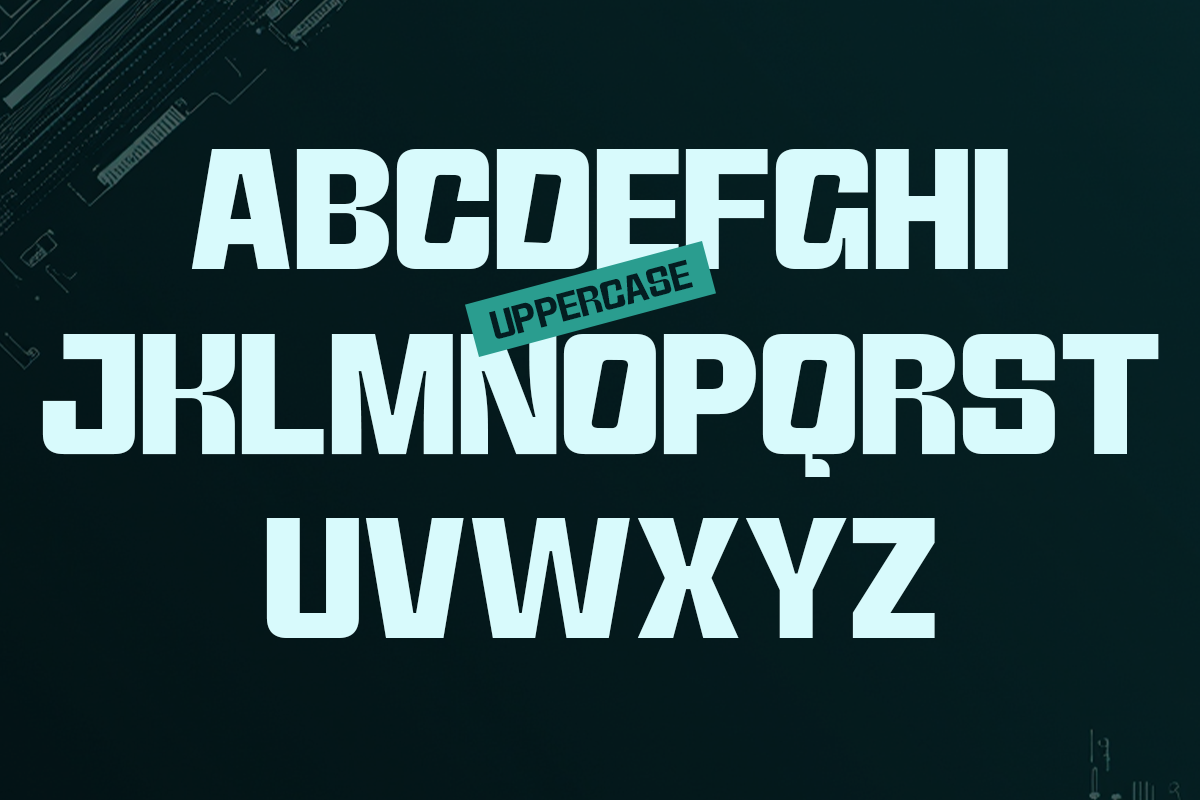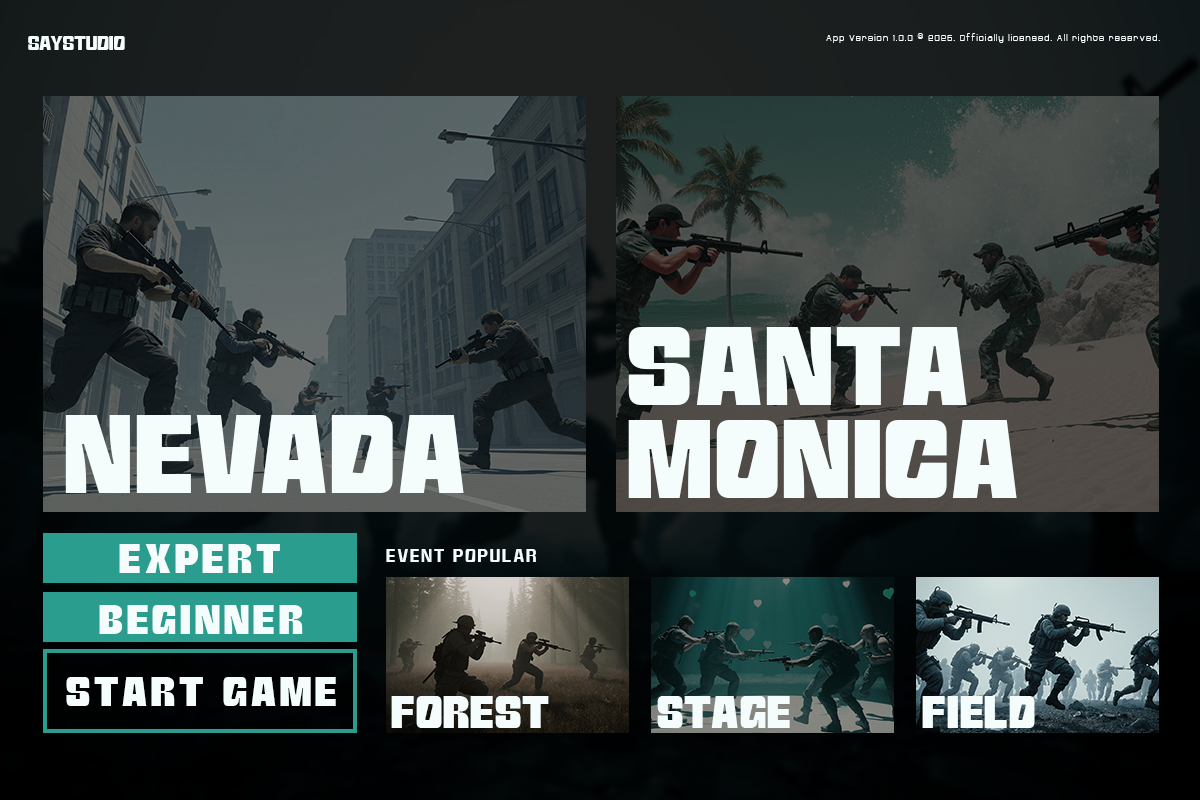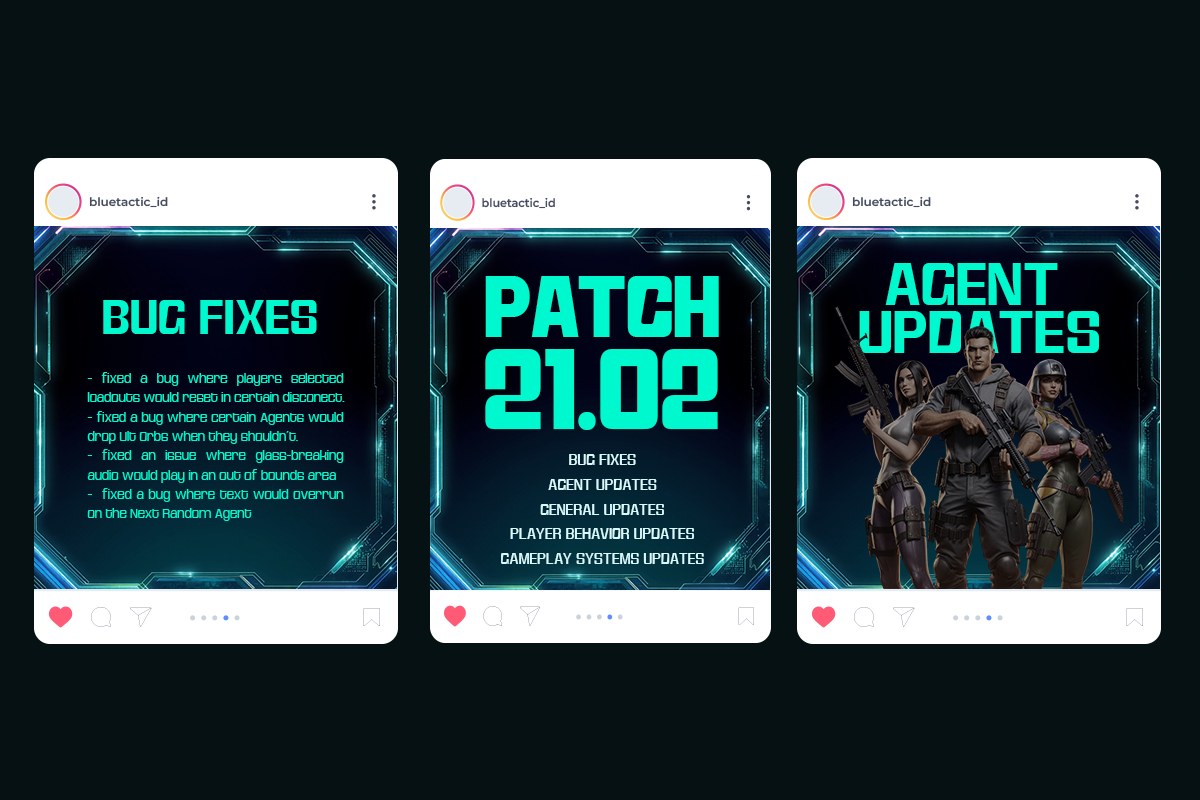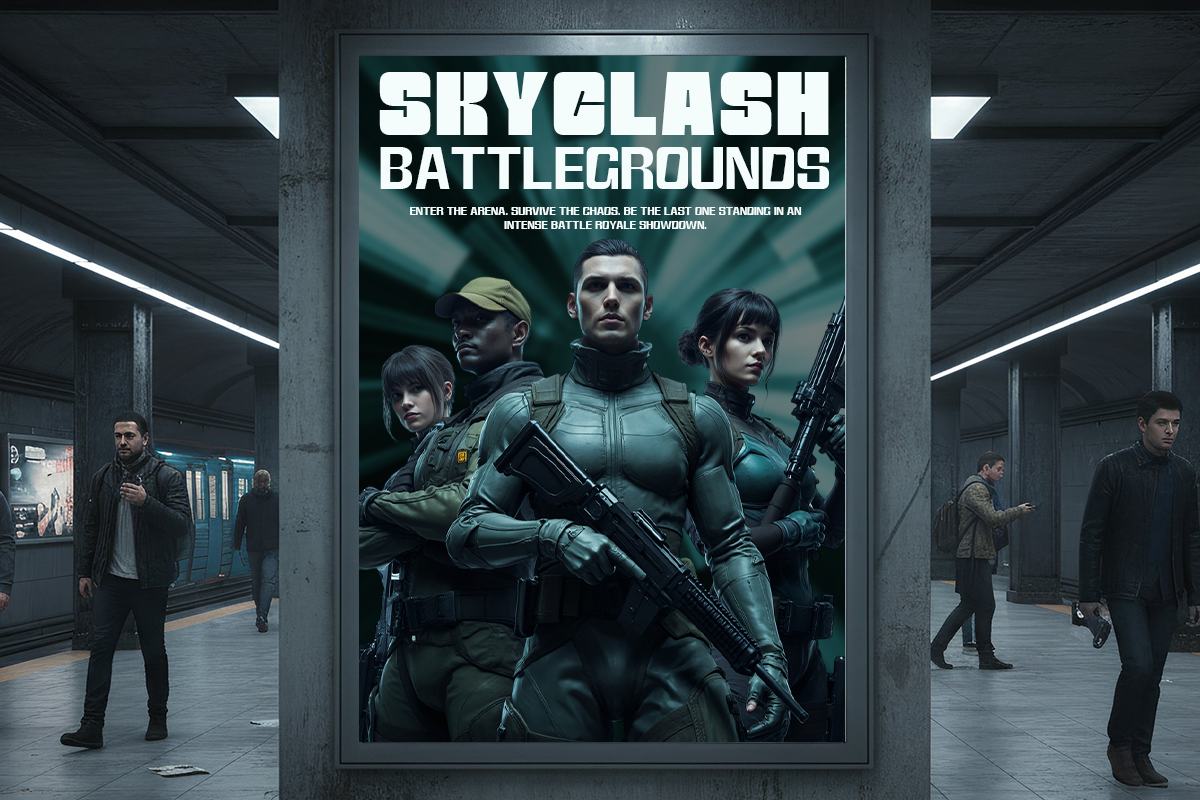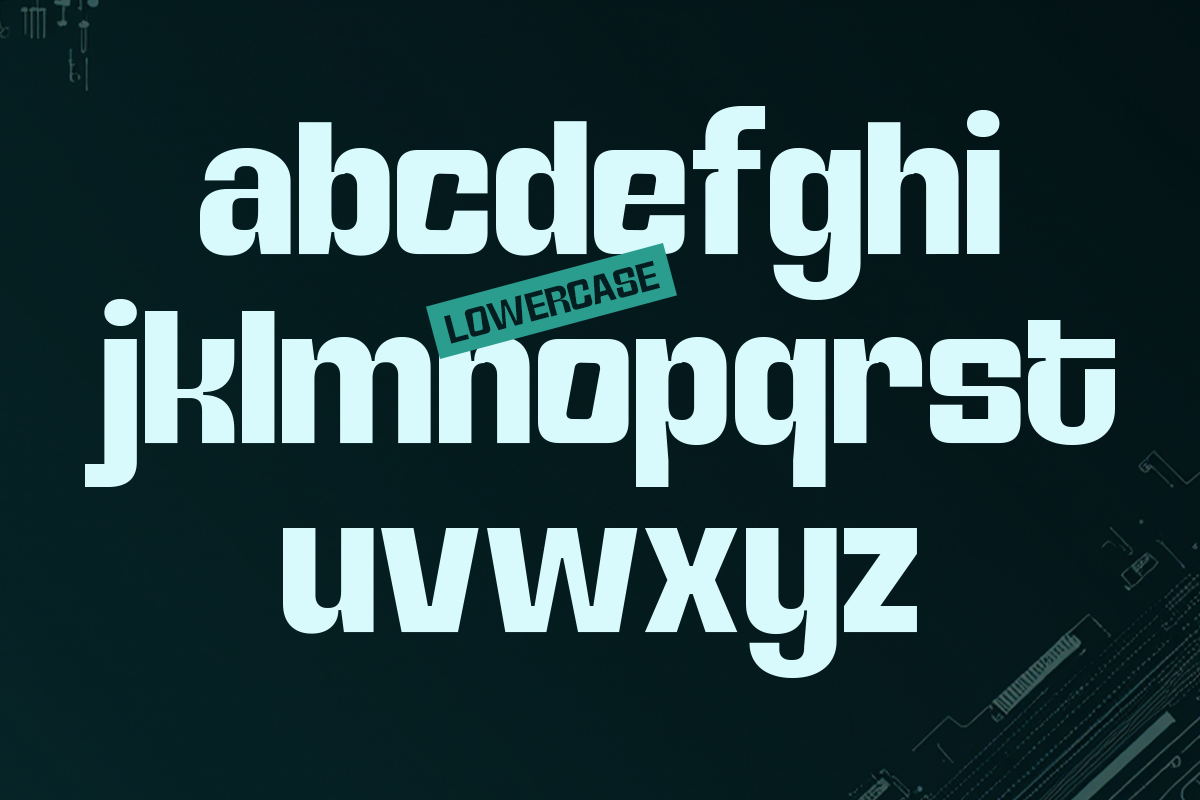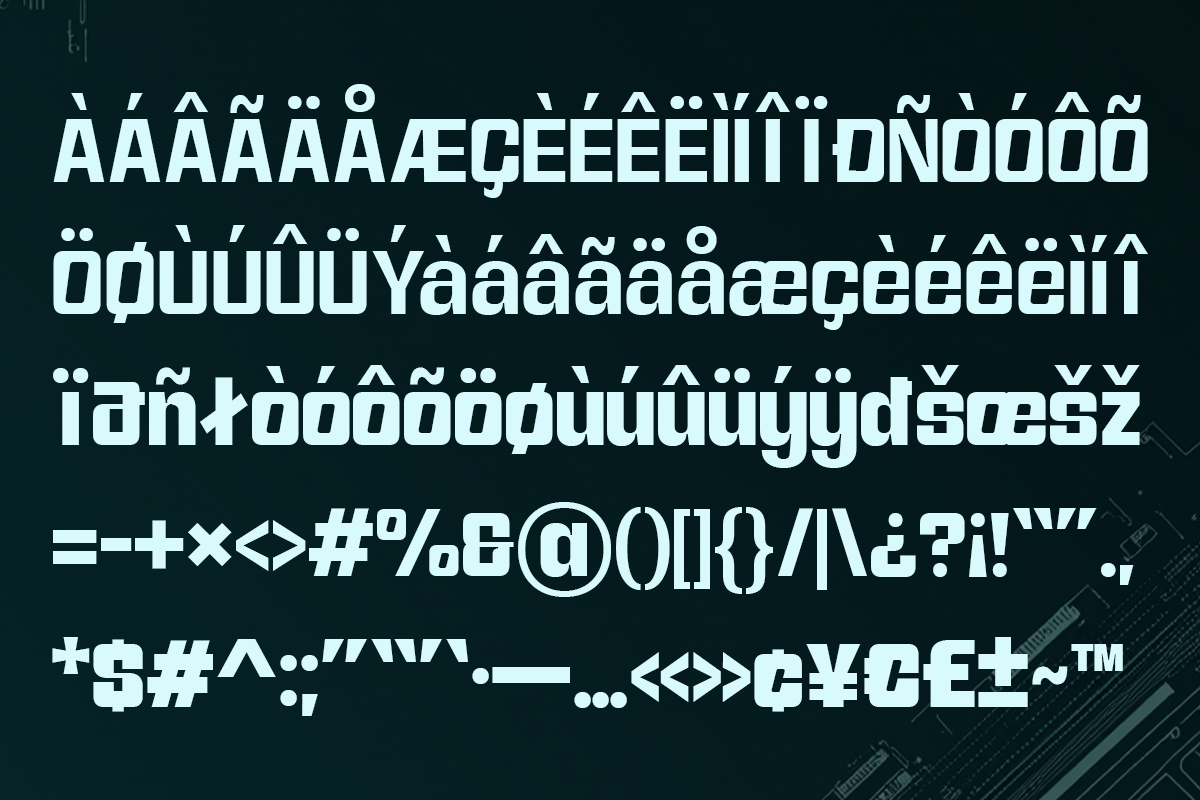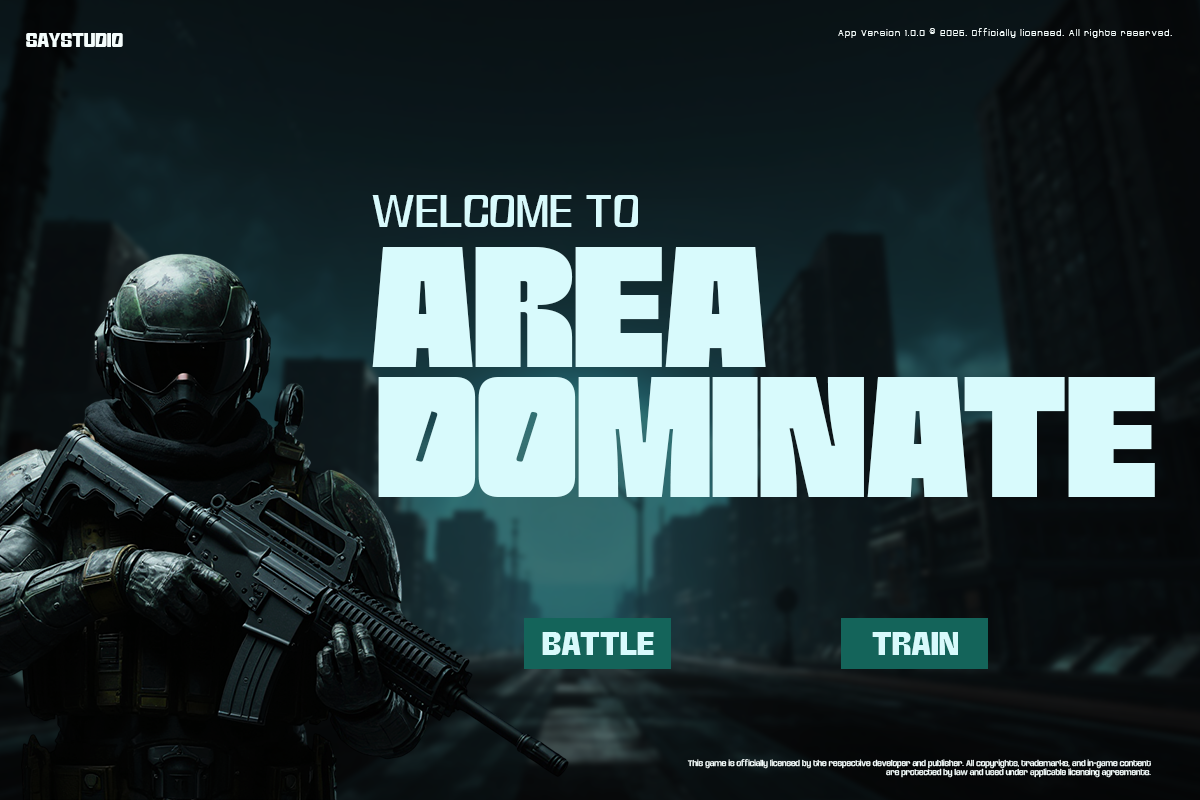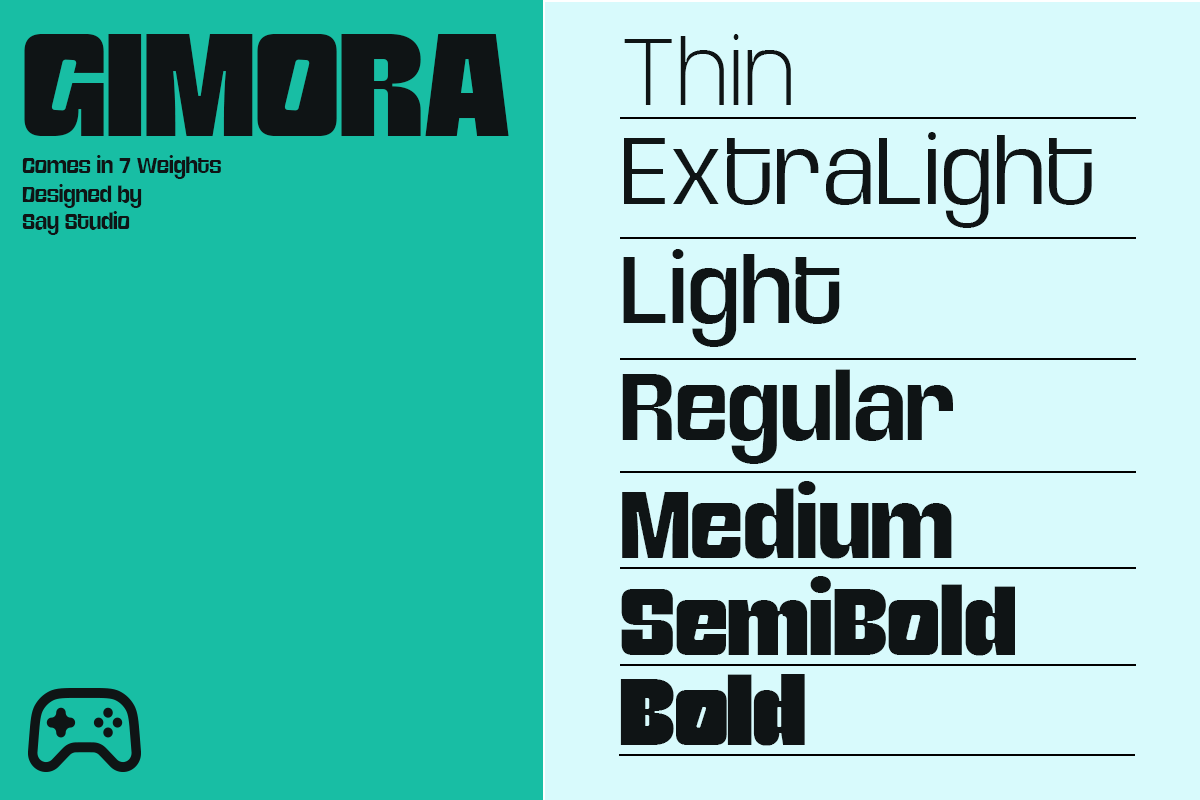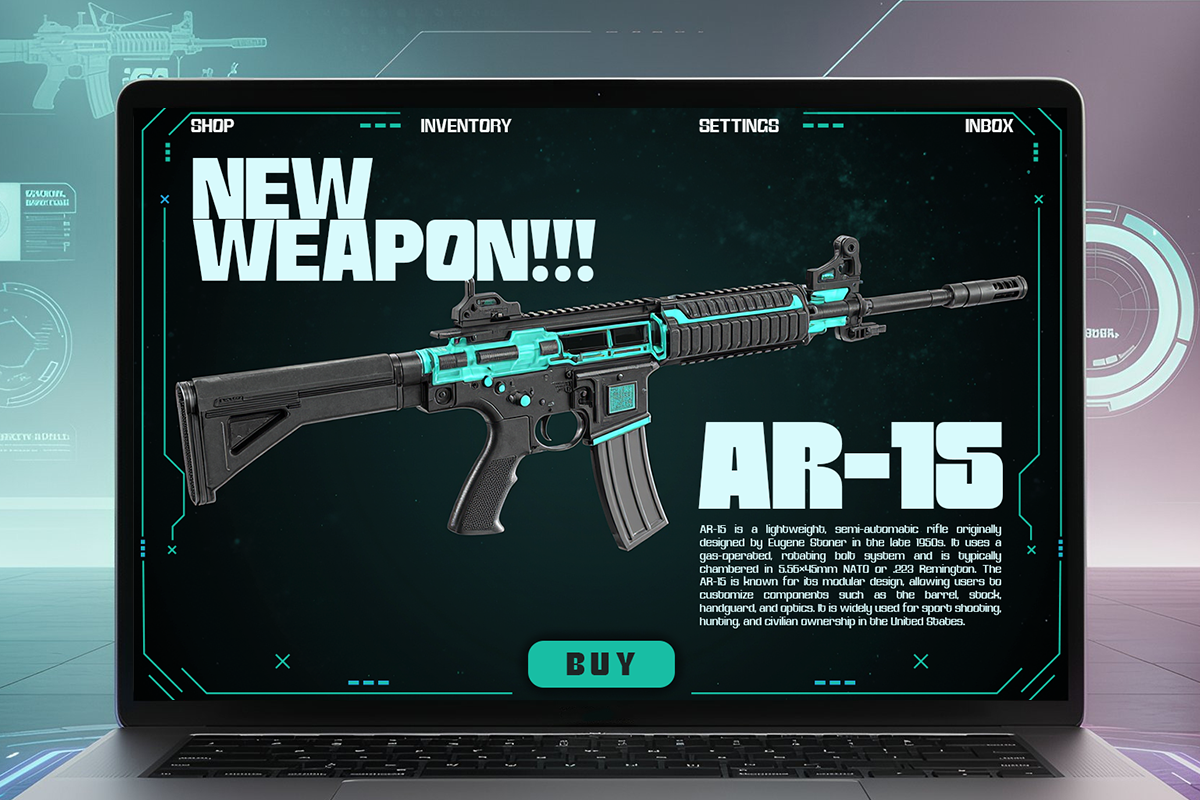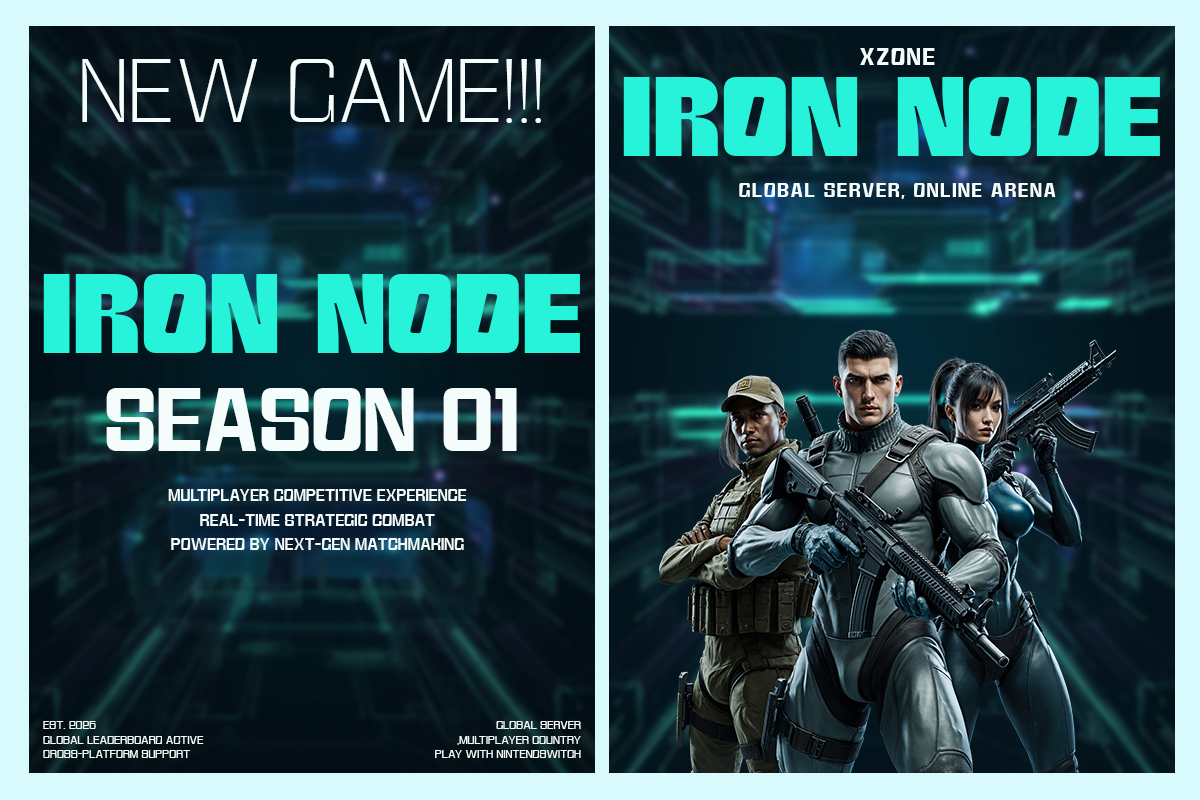
Gimora - Display Family Typeface
Gimora is a futuristic display family typeface built to deliver bold impact, sharp clarity, and high-tech character across modern visual design. With its strong geometric construction, clean curves, and dynamic proportions, Gimora creates a powerful presence that feels innovative, digital, and forward-looking. This font is designed to stand out instantly while maintaining excellent legibility.
Crafted for tech branding, gaming visuals, esport identities, sci-fi concepts, UI headers, futuristic posters, and digital campaigns, Gimora provides a versatile typographic system for projects that demand energy, precision, and modern aesthetics. Its display family structure allows designers to build consistent, flexible, and scalable design systems across multiple platforms, from mobile interfaces to large-format graphics.
Perfect for gaming studios, technology brands, startup identities, cyberpunk visuals, digital product launches, streaming overlays, motion graphics, and social media content, Gimora helps shape strong futuristic branding with confidence and style. Whether for bold headlines or immersive visual storytelling, Gimora delivers sharp impact, modern edge, and professional polish.
- Standard Uppercase & Lowercase
- Symbol & Number